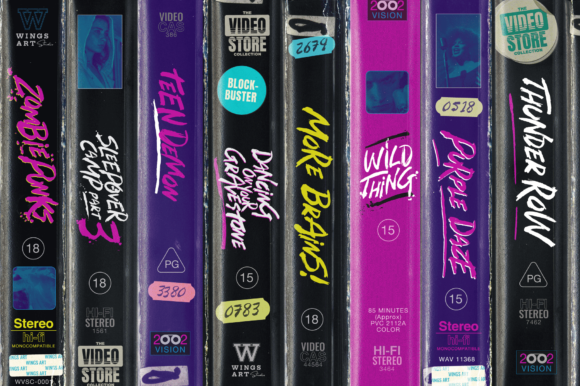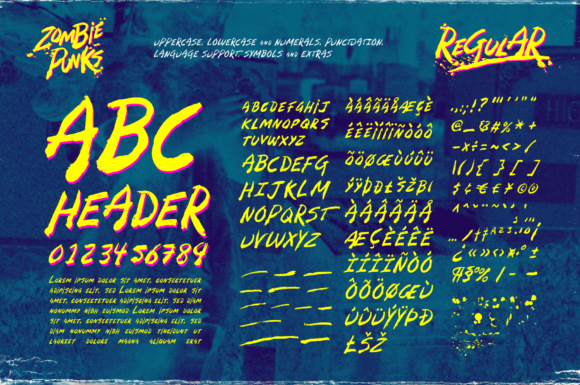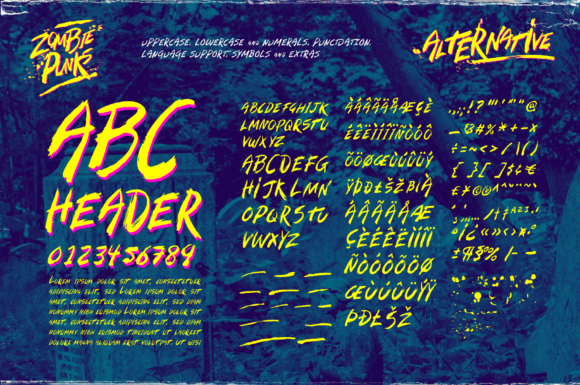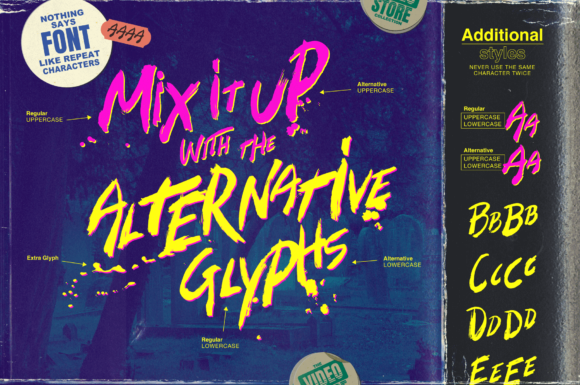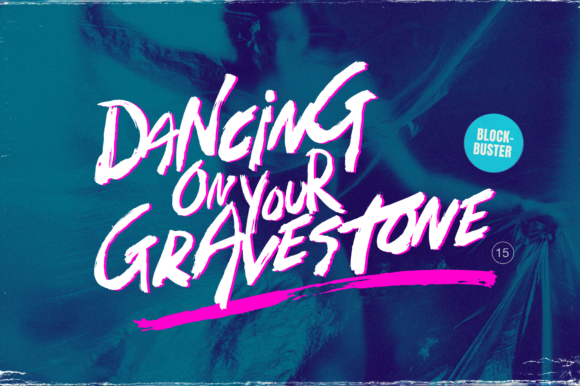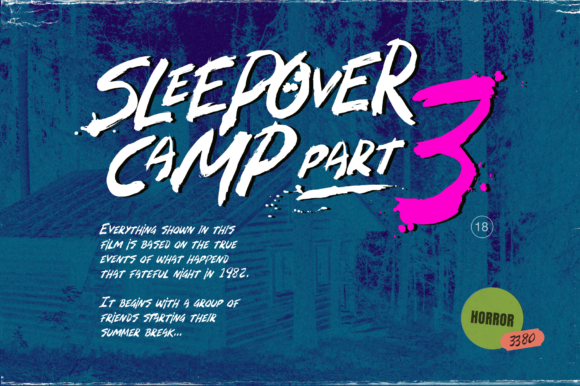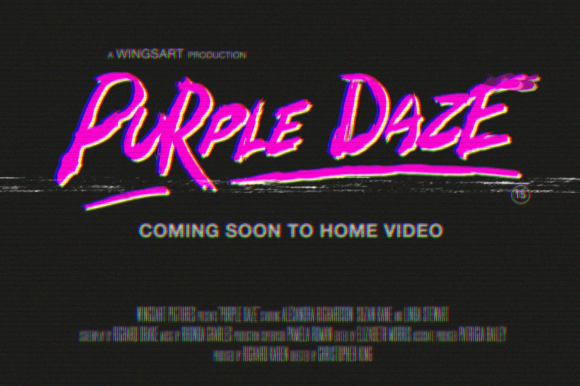
Zombie Punks Font
Zombie Punks is an awesome, graffiti-styled display font that has a futuristic, street art vibe. This font is suitable for designs such as t-shirts, sportswear, logos, advertisements, clothing, and more.